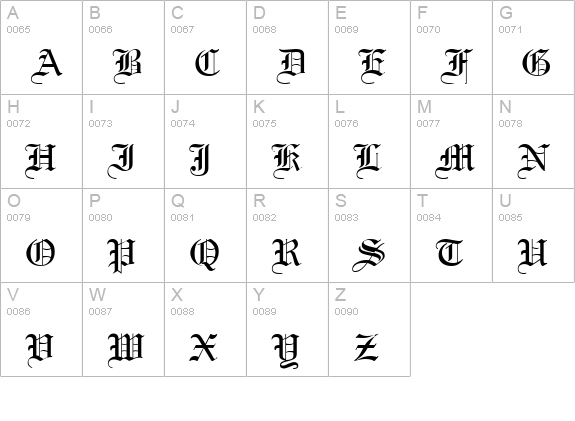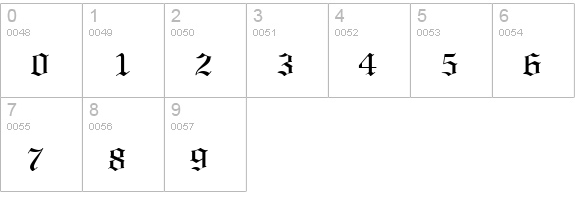
The Certificate font exudes elegance and sophistication, making it the perfect choice for creating official documents and certificates. Its timeless appeal and classic design make it a popular choice for various formal occasions. The ornate details and intricate flourishes add a touch of refinement to any text, making it stand out with a sense of prestige. What makes the Certificate font even more appealing is that it is available for free download at FontsMarket.com. This means that you can easily access this exquisite font without any cost, allowing you to elevate your designs without breaking the bank. Whether you're designing certificates, invitations, or other important documents, the Certificate font is a versatile and stylish option that will add a touch of elegance to your projects. Download it today and elevate your designs with this timeless and sophisticated font.